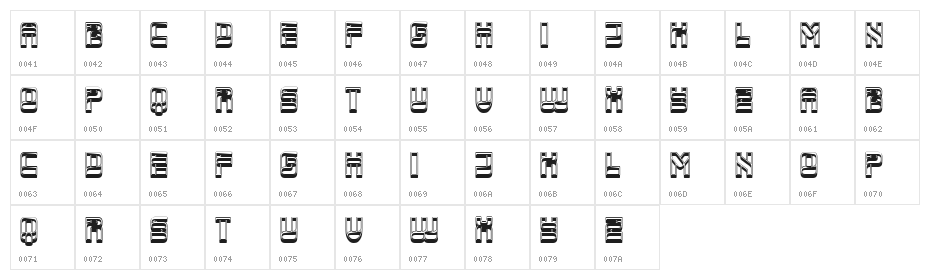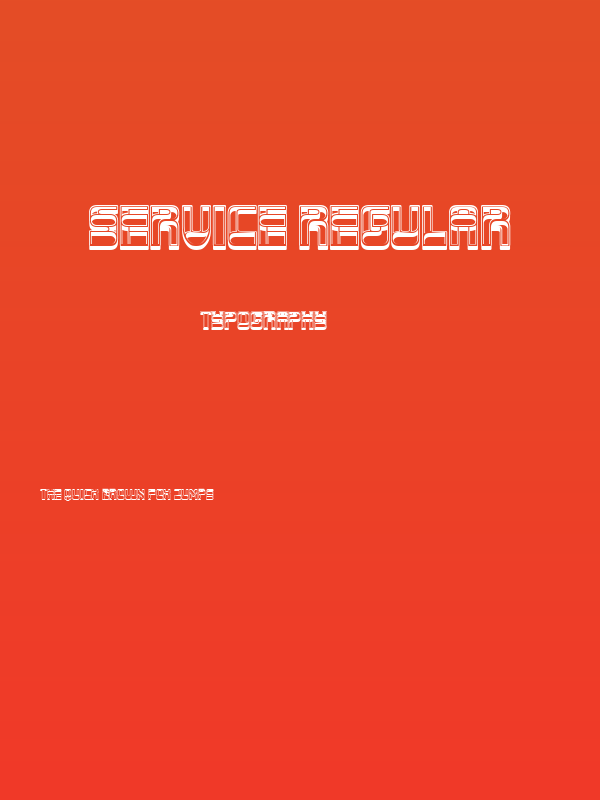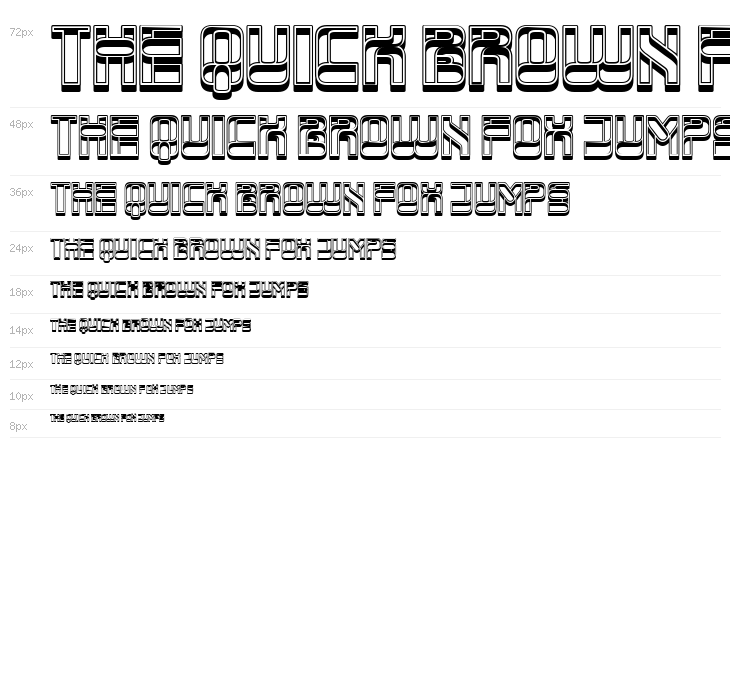
Service Regular Font
Service Regular Description
This font features a bold and striking design with a three-dimensional, layered appearance. Each character is outlined with a thick border, creating a sense of depth and shadow. The geometric shapes and clean lines give it a futuristic and modern feel. The uppercase letters are particularly prominent, with a consistent height and width that enhances readability. The font's unique style makes it stand out, perfect for attention-grabbing headlines or logos. The spacing between characters is tight, contributing to its compact and impactful look.
| Proposed Projects | Ideal for futuristic branding, tech-related projects, posters, and eye-catching headlines. |